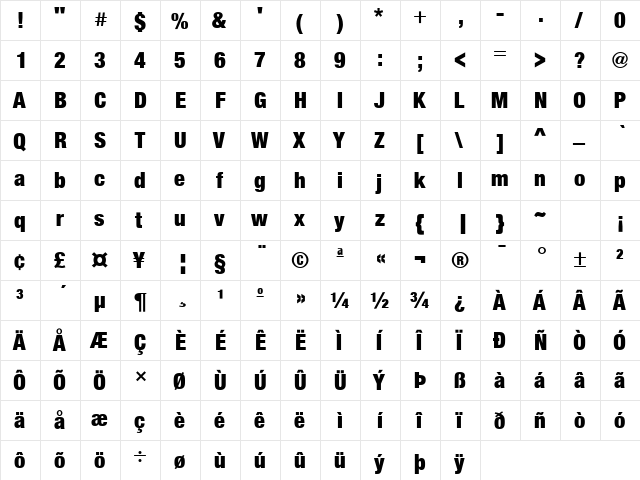
Sans Black Cond. Regular
Design Context for Sans Black Cond. Typeface
Sans Black Cond. takes a measured approach to typography — its balanced proportions and neutral character make it a reliable workhorse for both digital and print work. The condensed width makes it efficient for tight spaces without sacrificing legibility.